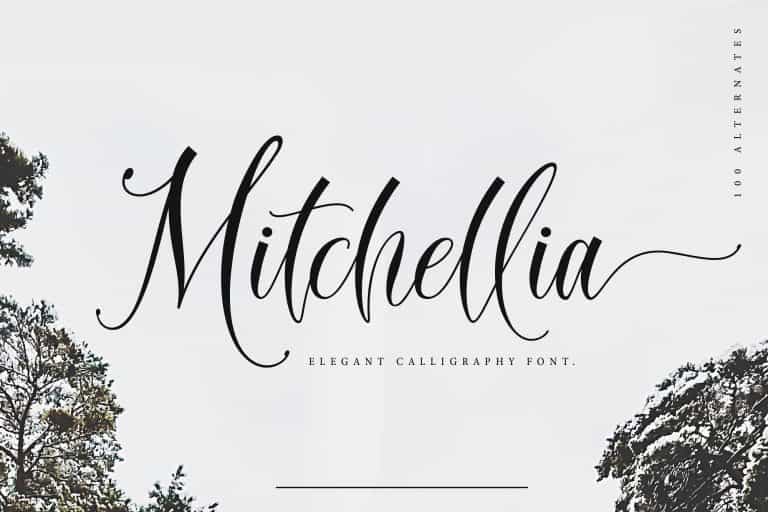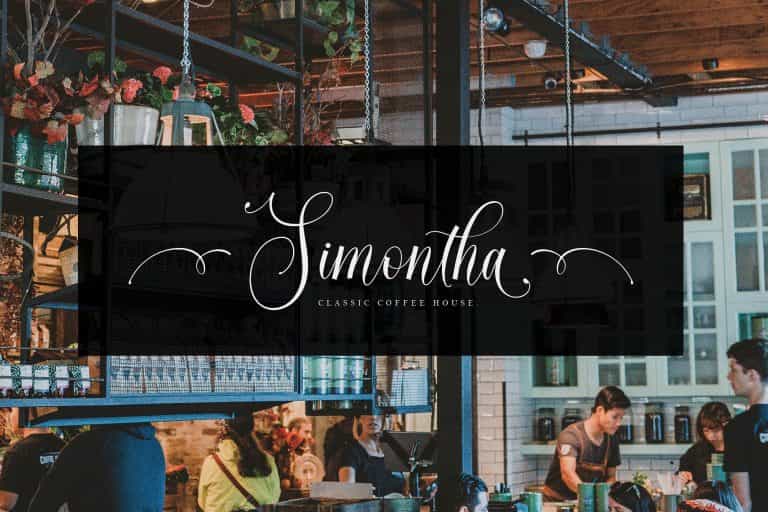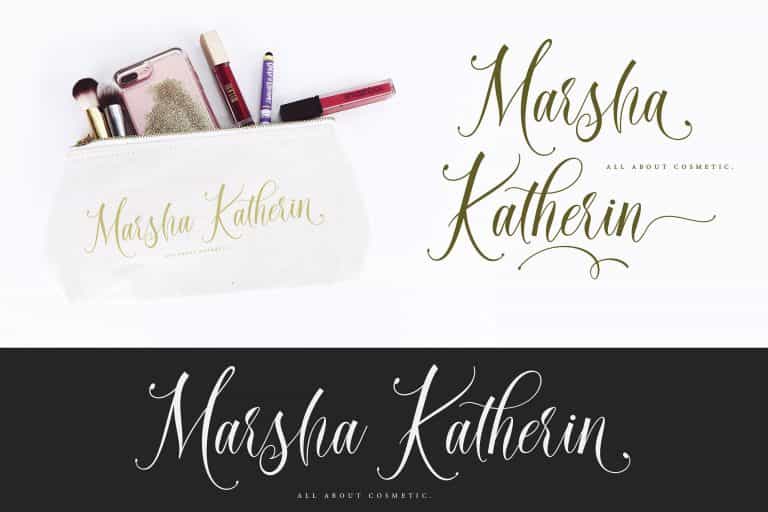
Mitchellia – is a stylish calligraphy font designed by sizimon. Mitchellia – created to be the messenger of elegance and style. It is slim, a girl and nice. Mitchellia is ideal for fashion use, e-commerce brands, trend blogs or any business that wants to look classy and stylish.